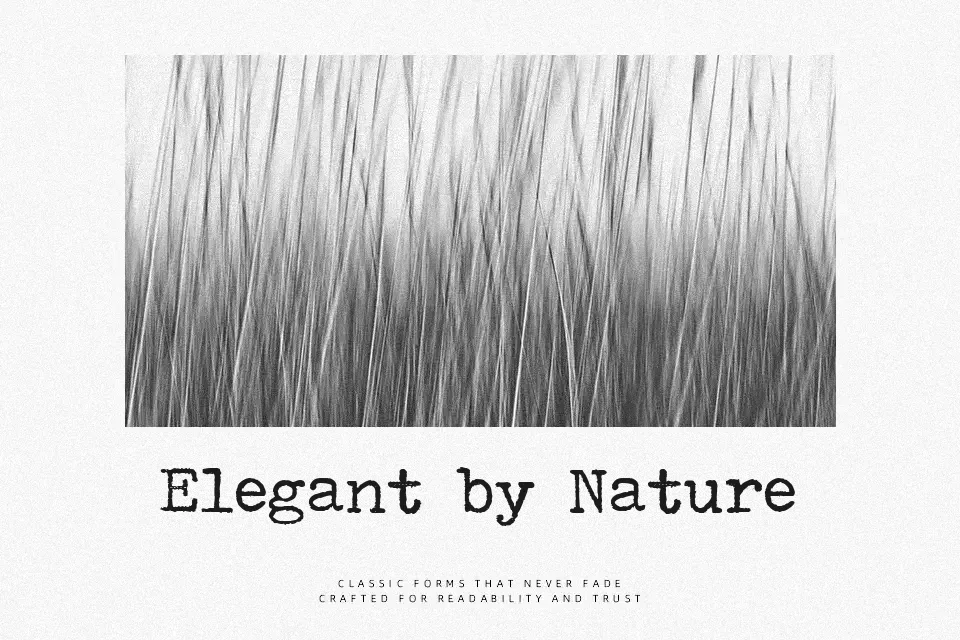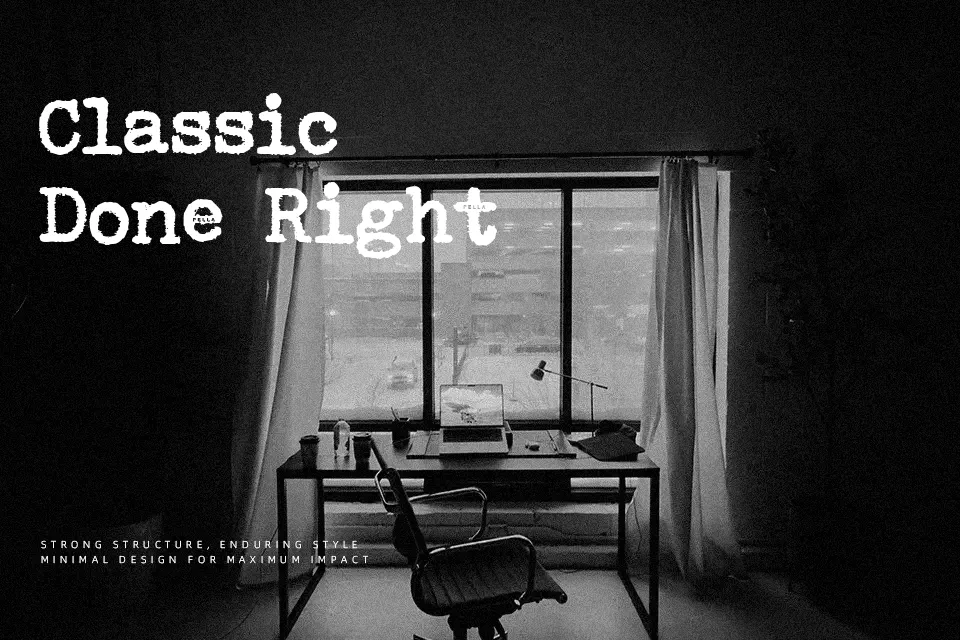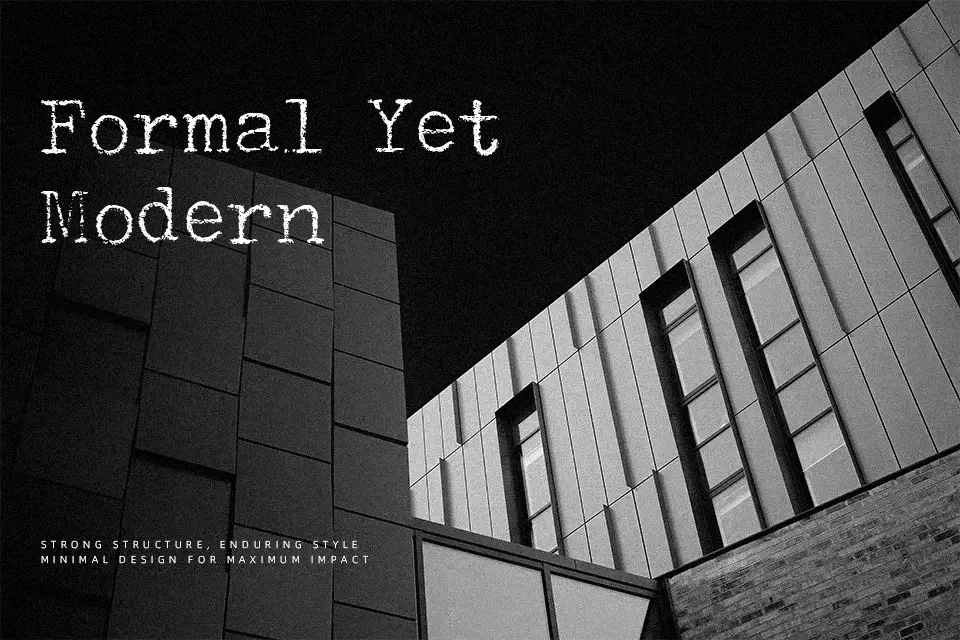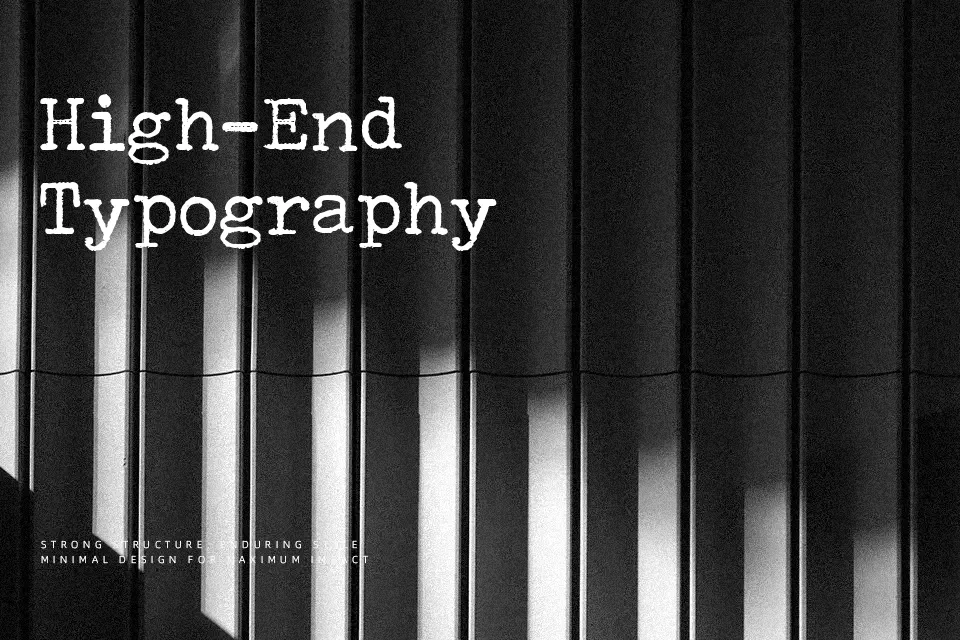
Smithy XT Font
Designed by Pella
Smithy XT Font presents a mechanical typewriter structure characterized by sturdy slab serifs, monoline strokes, and generous character spacing. The letterforms display wide, boxy proportions with blunt terminals that mimic early mechanical typesetting, creating an authentic vintage feel. In headline settings and short editorial snippets, the typeface maintains strong character definition and dependable visual rhythm. The open letter spacing helps preserve legibility across medium display formats. However, the rigid mechanical geometry and deliberate stroke uniformity become less comfortable during extended paragraph reading. The design is best suited for vintage packaging, retro posters, and thematic editorial headers rather than continuous body copy.
Best For: vintage packaging labels, retro poster headlines, editorial pull quotes, thematic book covers
Not Ideal For: long paragraph text, corporate financial spreadsheets, dense mobile UI labels, technical manuals
Perfect for editorial, headline, and packaging, with a classic and display style.